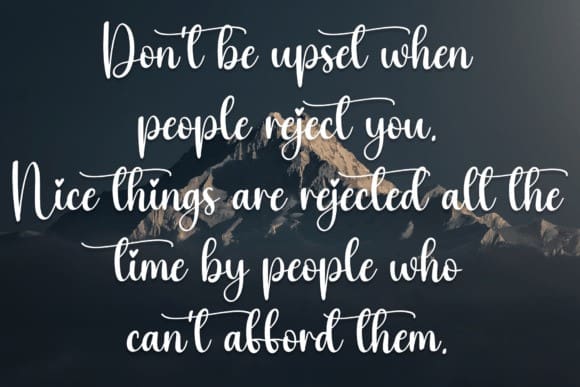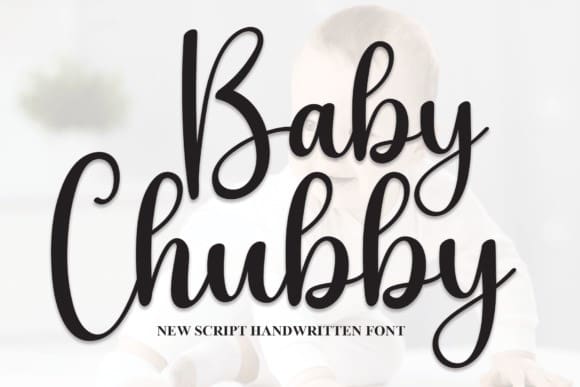
Baby Chubby Font
Baby Chubby Font, are perfect for wall displays, wedding invitations, social media post logos, advertisements, product packaging, product designs, labels, photography, watermarks, invitations, stationery, and any project that requires a handwritten taste.